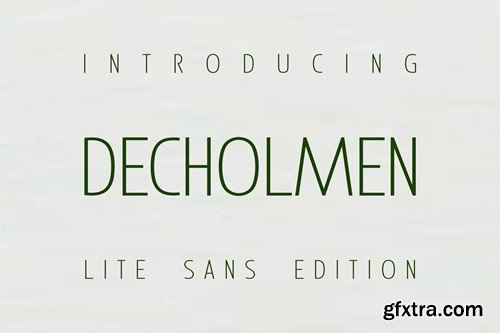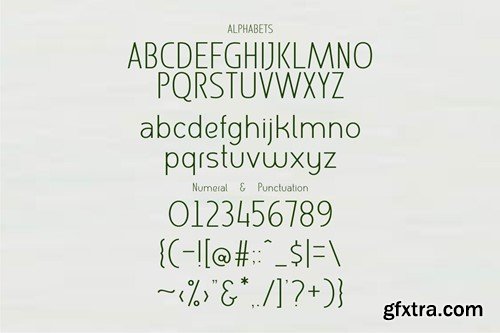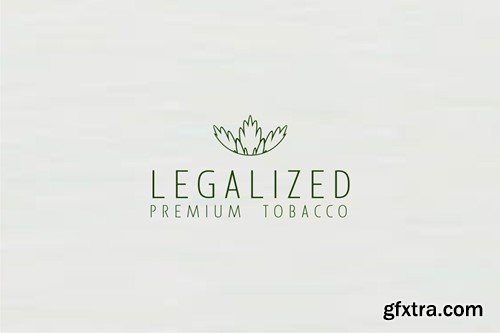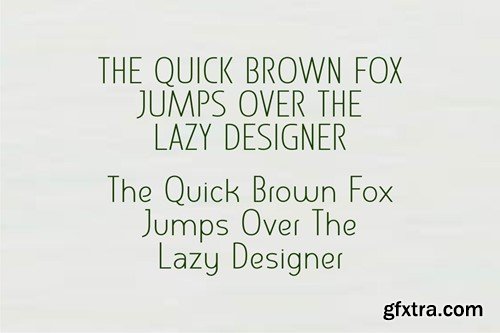
Decholmen Lite Font
is a lite edition sans serif font suitable for product descriptions, or anything sleek. light and good quality. This font is suitable for use on small box packaging labels such as wooden match packaging, cigarettes, soap and anything that uses small packaging. available in .OTF and .TTF formats only. (easy to reconvert) Thank You